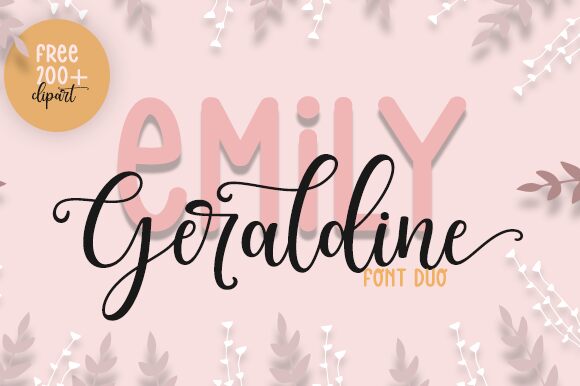
Geraldine, the semi-light calligraphy font designed by Danar Nugroho, is the perfect choice for any project requiring an elegant and sophisticated touch. Its fluid strokes and graceful curves bring a unique charm to wedding invitations, greeting cards, and branding materials. The semi-light weight makes it easy to read while maintaining its delicate appearance. Geraldine's versatility allows it to be used in a wide range of projects such as fashion magazines, luxury product packaging, or even restaurant menus. With its timeless beauty and sophistication, Geraldine is the go-to font for adding a touch of class to any design project.